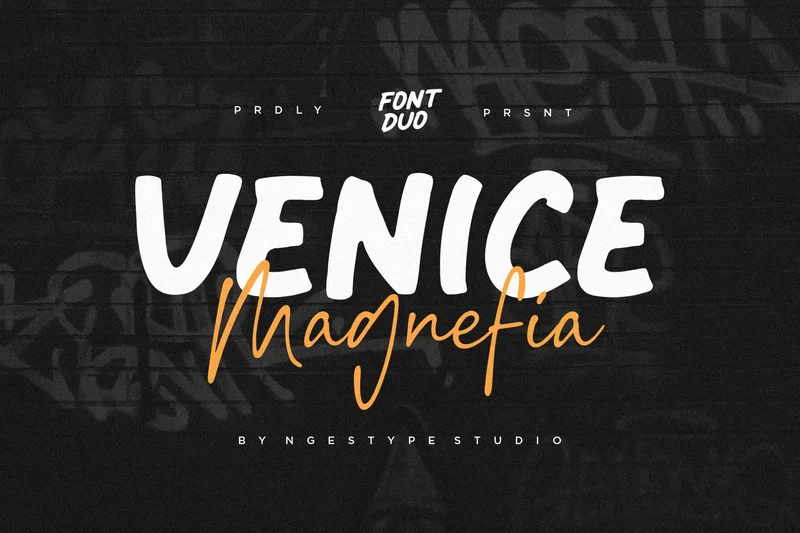
Venice Magnefia – Bold Brush & Script Font Duo
Venice Magnefia is a bold and dynamic font duo that blends a confident brush display with an elegant handwritten script. Designed to create eye-catching contrasts, this duo perfectly captures the energy of urban design and the sophistication of modern branding.
The Venice typeface brings strength and presence with its bold brush texture — ideal for headlines, logos, and impactful packaging. Meanwhile, Magnefia adds a touch of handwritten charm, creating a stylish balance that feels both bold and personal.
Together, they form a versatile combination suitable for branding projects, music posters, restaurant logos, and lifestyle packaging. Whether you want an urban edge or a refined creative touch, Venice Magnefia is made to make your message stand out.